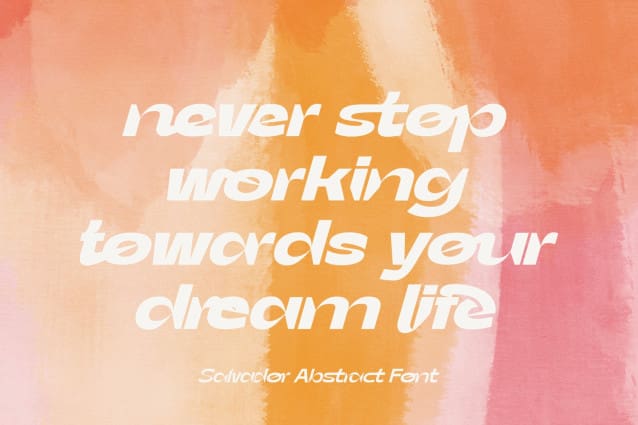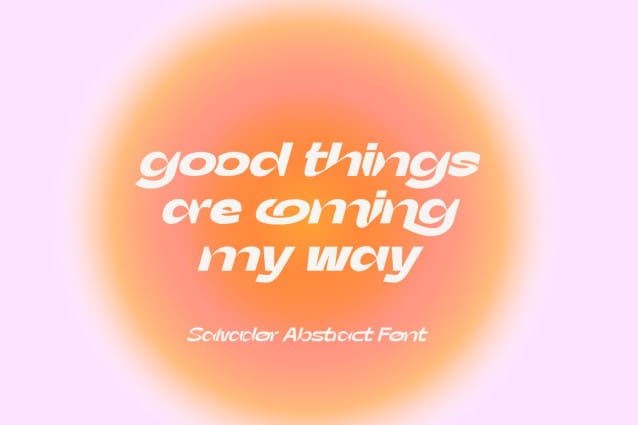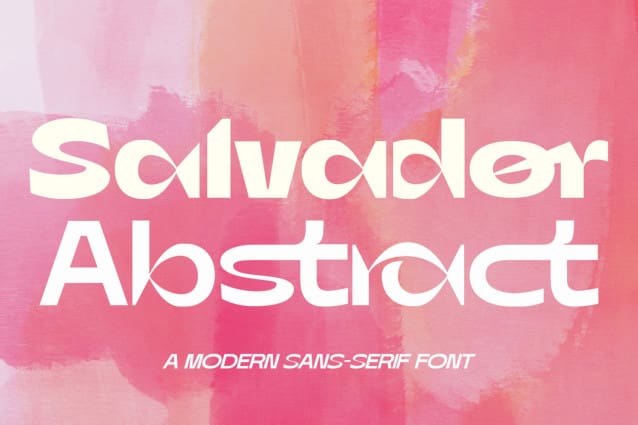
Salvador Abstract Font
Salvador Abstract Font is a chunky sans serif display font with exaggerated ink trap features. It has a high contrast appearance. It carries an overall bold look, while also featuring some thin crossbars and components that help it pop in large sizes. It’s designed for projects that call for a bold statement as well as a shift in mood to a delicate sophistication with her lighter weight – whether it’s a chic brand identity, a bold magazine layout, or a striking web design.
Salvador Abstract was built with OpenType features and includes 100 ligatures, alternate, numbers, punctuation, and it also supports other languages.